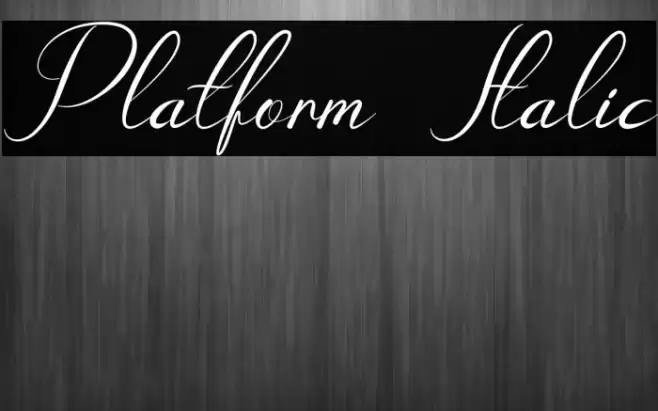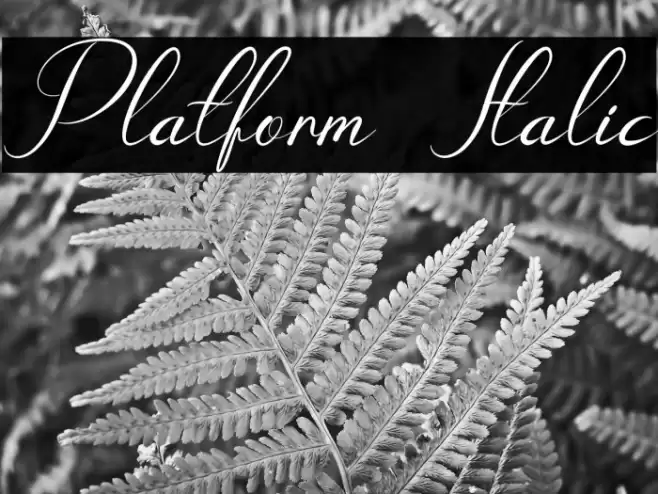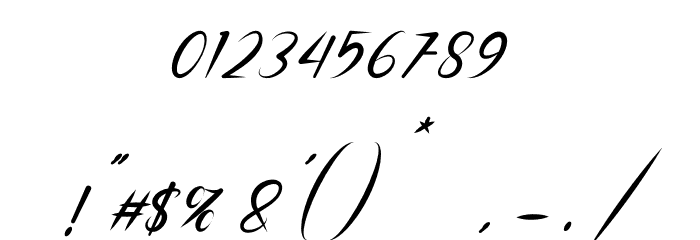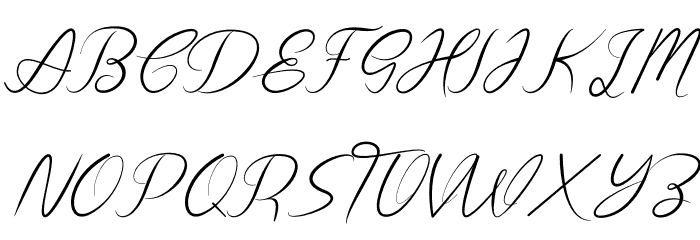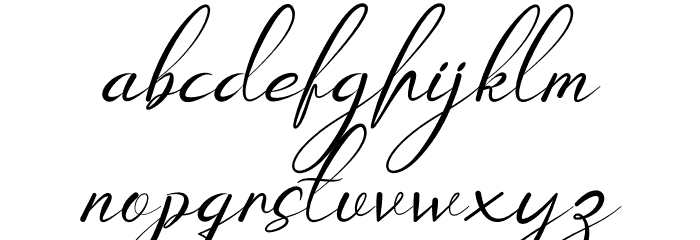
Platform Italic Font
Platform Italic Description
This font exudes elegance and sophistication with its flowing, cursive style. The letters are intricately designed, featuring smooth curves and delicate strokes that give it a handwritten appearance. The uppercase letters are particularly ornate, with extended flourishes that add a touch of drama. The lowercase letters maintain a consistent flow, enhancing readability while retaining an artistic flair. Numbers and special characters are crafted with the same attention to detail, ensuring a cohesive look across all text elements. This font is ideal for projects that require a personal, elegant touch.
An elegant, cursive font with flowing, ornate letters and a handwritten style from Uncategorized fonts.
- Proposed Projects: Ideal for wedding invitations, greeting cards, personal branding, and elegant logos.
- Overall Style: Elegant, Handwritten
- Use Case: Logos, Invitations, Personal Branding